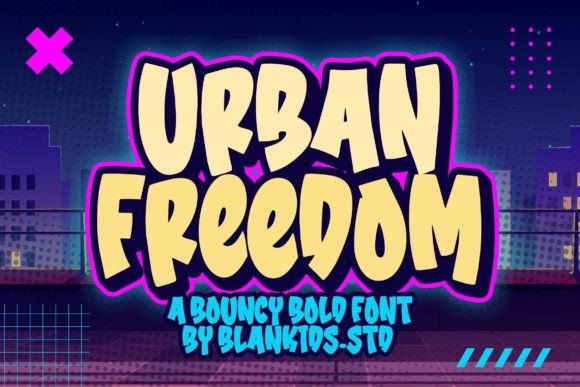
In a world saturated with conventional fonts, Urban Freedom emerges as a breath of fresh air, beckoning you to embrace a realm of boundless creativity and unrestrained expression. This extraordinary display font, meticulously crafted by the visionary artisans at Blankids Studio, is an ode to the whimsical charm of cartoon-style typography, inviting you to embark on a captivating journey where imagination reigns supreme.
With its bold and bouncy strokes, Urban Freedom exudes an infectious energy that leaps off the page, demanding attention and captivating hearts. Its playful curves and dynamic flourishes infuse your designs with a sense of childlike wonder and boundless joy, while its carefully balanced proportions ensure optimal legibility, making it a versatile choice for a multitude of applications.
Unleash the storytelling prowess of Urban Freedom in your book covers, where it weaves enchanting tales that transport readers to worlds of boundless imagination. Bring children's books to life with its jubilant spirit, allowing young minds to soar on wings of literary adventure. Create captivating comics that burst with personality, where each panel explodes with laughter and excitement.
Harness the visual impact of Urban Freedom in your posters, where its bold presence commands attention, leaving an indelible mark on the minds of beholders. Elevate packaging designs with its playful charm, attracting customers with its irresistible allure. Let your merchandise speak volumes with Urban Freedom's distinctive voice, captivating audiences with its unique appeal.
Forge enduring logotypes that embody the essence of your brand, utilizing Urban Freedom's bold strokes to leave an unforgettable impression. Its versatility extends to a myriad of creative endeavors, effortlessly adapting to your unique vision, whether it be website designs, social media graphics, or eye-catching advertisements.
With Urban Freedom as your creative companion, embark on a journey of endless possibilities, where imagination knows no bounds. Let your designs radiate with a vibrancy that captivates and inspires, leaving audiences spellbound by the sheer brilliance of your creations. Embrace the boundless potential of Urban Freedom and unlock the gateway to a world where creativity flourishes and dreams take flight.